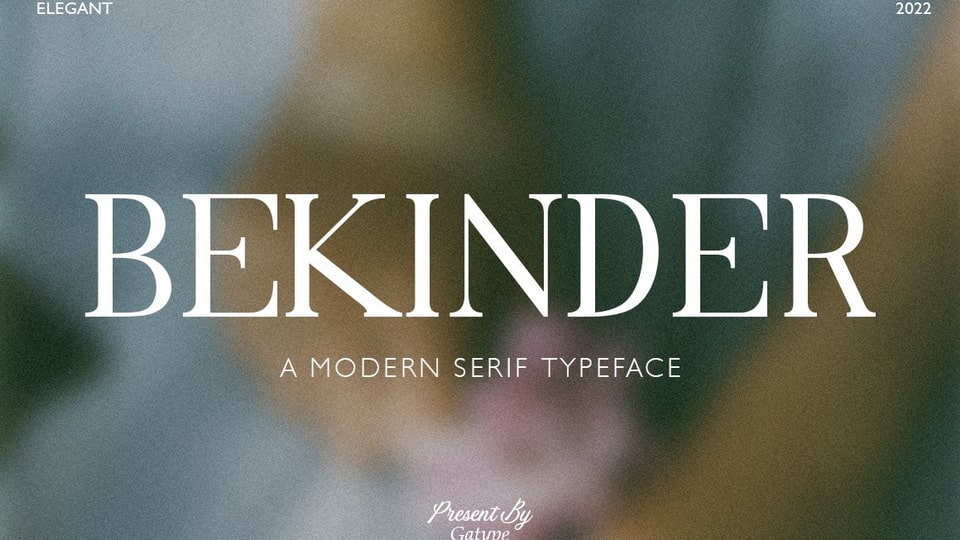
Download Bekinder font, a modern high contrast serif typeface with a unique style. This customizable font will look great on a variety of design ideas such as wedding projects, Bekinder is perfect for feminine logo signs, fashion and editorial design.